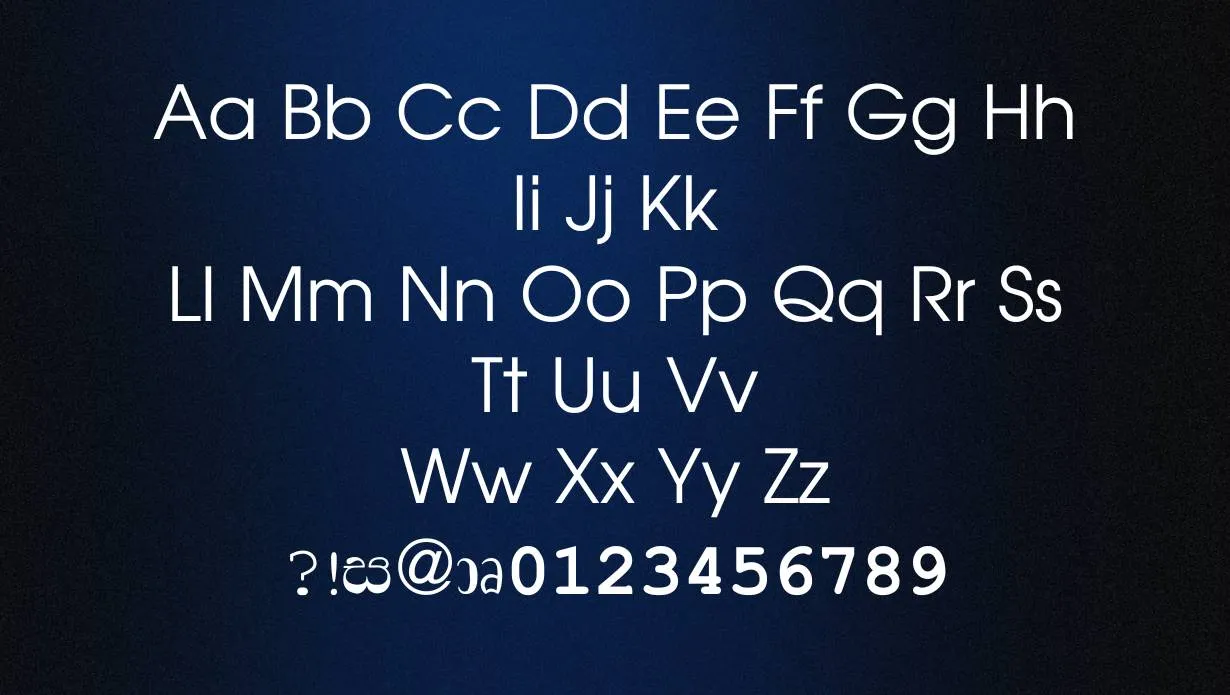
Madhura is a font that exudes simplicity and elegance. Its graceful design makes it suitable for a variety of applications, from formal documents to personal letters.
The letters are well-proportioned, creating a harmonious flow. Madhura font is easy on the eyes, making it a good choice for longer pieces of text. Whether you’re writing a letter to a friend or creating a document for work, Madhura adds a touch of sophistication to your words.